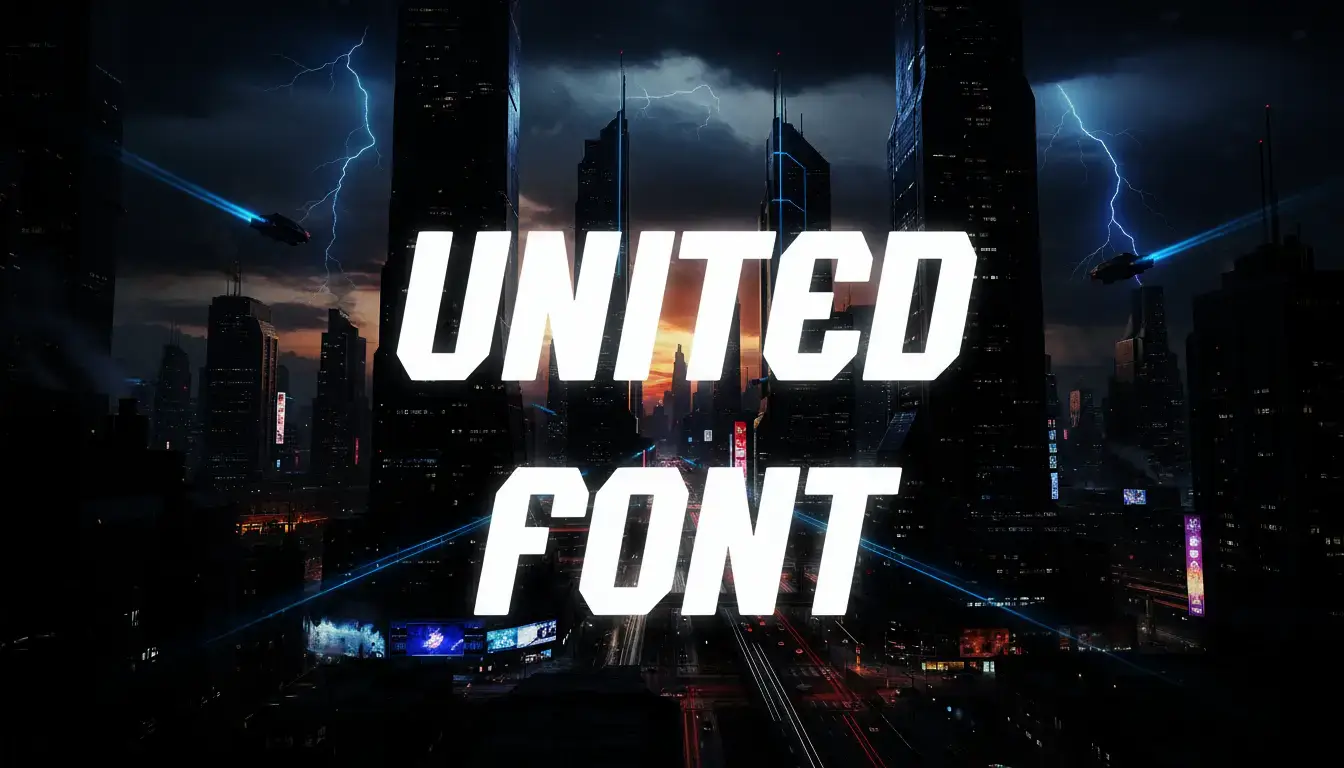
United Font
United is a fancy font made by Kong Font. Bold and full of character, it's built to stand out rather than blend in. You can download it for free and test it with your own words in the preview above.
What You Can Type With United
With complete upper and lowercase letters and all ten digits, United is ready for real wording, not just a single headline. Common punctuation such as &, !, ? and @ is included as well. It also has the accented letters you need for Spanish, French, German, Portuguese and Italian.
Where United Works Best
Designers usually reach for fonts like United when they're making posters, logos and eye-catching headlines. Use it for one standout word or headline and let simpler fonts handle the rest.
Does United support accented letters?
Yes. United includes the accented letters needed for Spanish, French, German, Portuguese and Italian, so it works for more than just English.